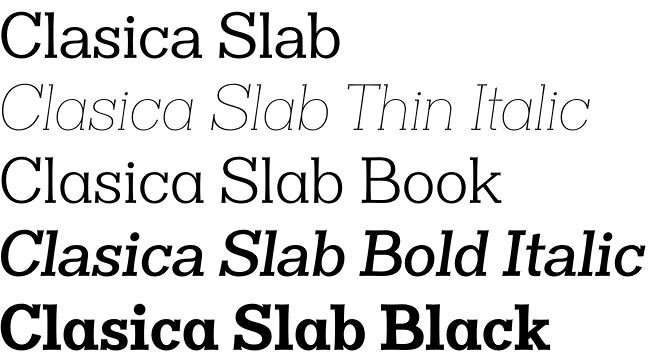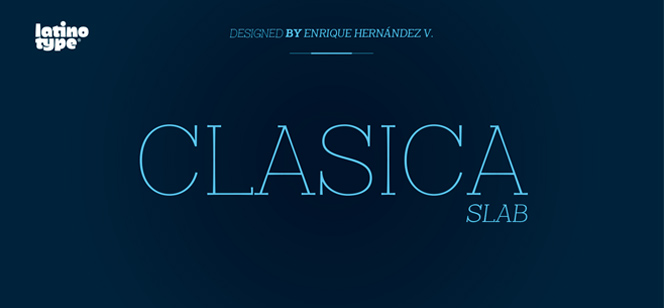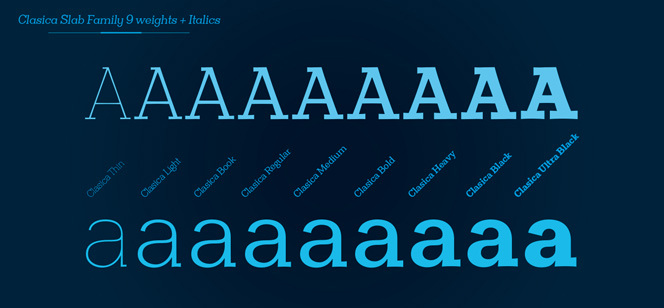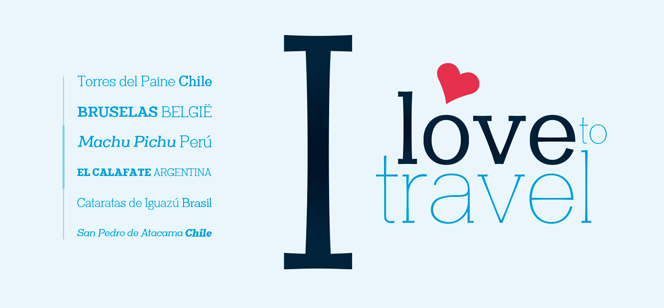
Clasica font
Clasica font family is a fresh and contemporary slab serif designed by Latinotype. Developed in 9 different weights Clasica shows a lot of diversity and originality and if you want to double it, simply use the 9 corresponding italics. With the total of 18 outlines, this family breaks thru the boundaries of ordinary and becomes a real workhorse if you are seriously involved in editorial design, print ads etc. Clasica covers the whole range – from large text paragraphs in small size to extra large contrast headlines and subheads. Regardless its use, size, alignment etc, this family has very solid and consistent look mostly because of its balanced contrast and strong serifs that form visible horizontal lines that keep the text tight. Legibility is another great achievement in this font – though it is a serif face which means more complicated geometry, Clasica has the readability similar to those of geometrical sans – a great advantage if you decide to use it for e-books, mobile apps or as resident font. All in all it is a typeface based on classic proportions but looking fresh and contemporary, appropriate for many and different designs.
Designers: Enrique Hernandez
Publisher: Latinotype